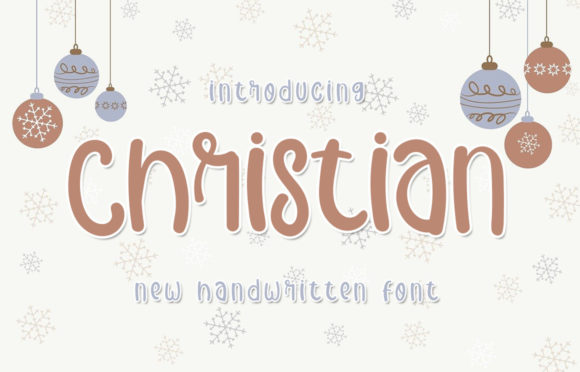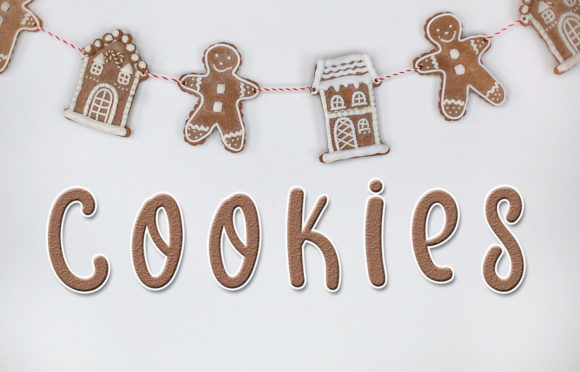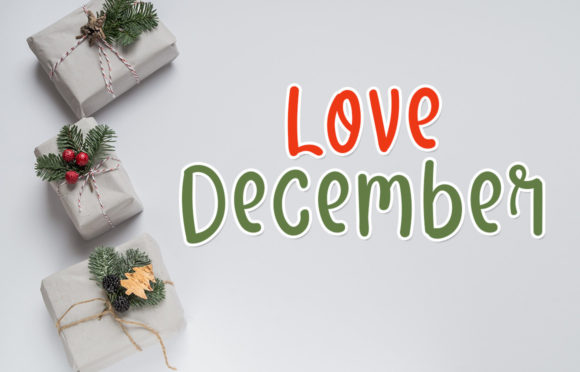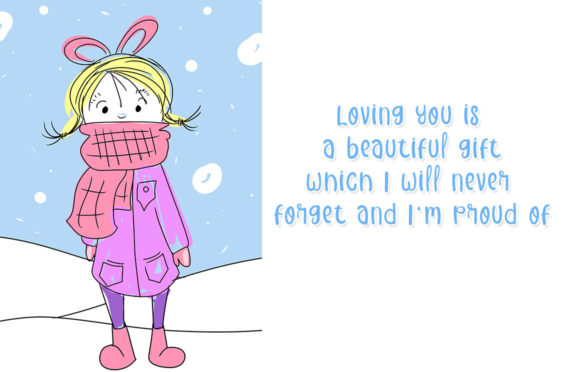
Christian Font
About Christian Font
Christian is a beautiful and sweet handwritten font. It is fresh, clean, and friendly. This font will look amazing in a great amount of projects, both formal and informal.